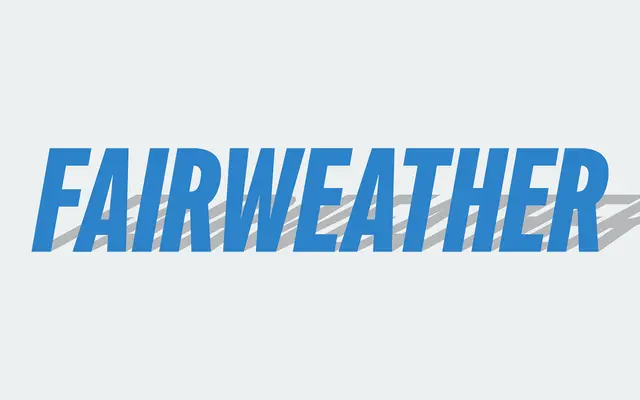
Fairweather specimen from Dharma Type
A nine-weight condensed sans-serif with matching italics, built for tight layouts where legibility and neutrality matter.
Fairweather is a condensed sans-serif with plain, unobtrusive letterforms suited to titles, captions and body text in space-constrained settings. Nine weights run from Thin to Black, each with a matching italic, and the family covers most Latin-based languages. Its restrained character means it sits quietly behind the content rather than drawing attention to itself.
Fairweather is a condensed sans-serif with neutral, plain letterforms designed specifically around condensed proportions for legibility in tight settings, placing it firmly in the condensed grotesque/sans tradition.